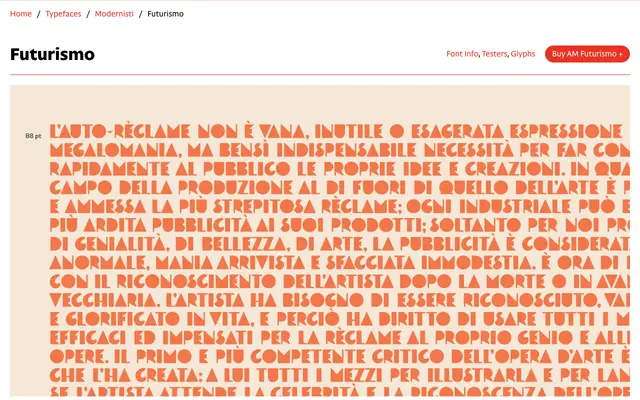
AM Futurismo
CAST · Alessandro Bombieri · 2025
AM Futurismo specimen from CAST
A digital revival of a circa-1930 Italian wood type, built from circles, triangles and rectangles with slightly rounded edges and deliberately retained idiosyncrasies.
Originally produced by Xilografia Ruggero Zuliani of Verona, the source material was coarse and inconsistent; Bombieri has regularised the terminals and refined numerals while preserving the organic irregularity of characters like C, G and Q. The counterless all-caps construction sits on basic geometric primitives, but unexpected thick/thin contrast on strokes such as the stem of P gives it a character absent from more clinical geometric revivals. Well suited to headlines, posters and any context where Italian Futurist graphic energy is appropriate.
A counterless all-caps geometric sans built from circles, triangles and rectangles with slight rounding and unexpected thick/thin contrast; its single weight, all-caps nature and wood-type revival origin place it firmly in display rather than text use.